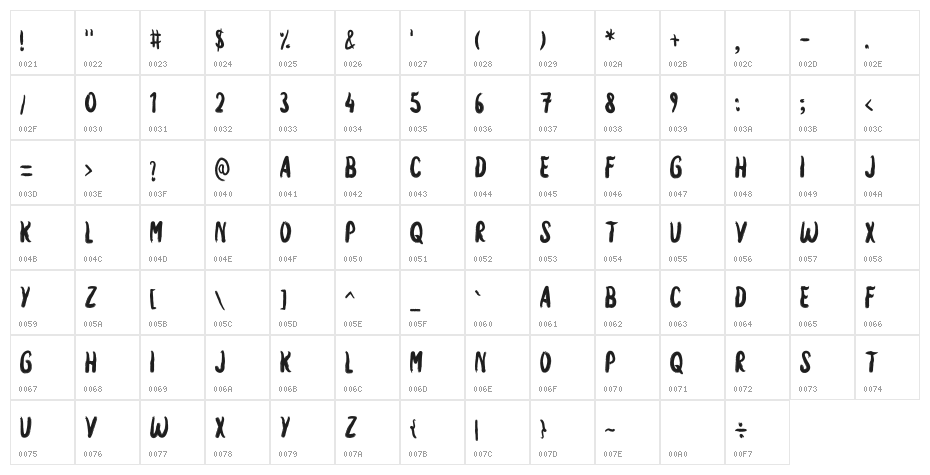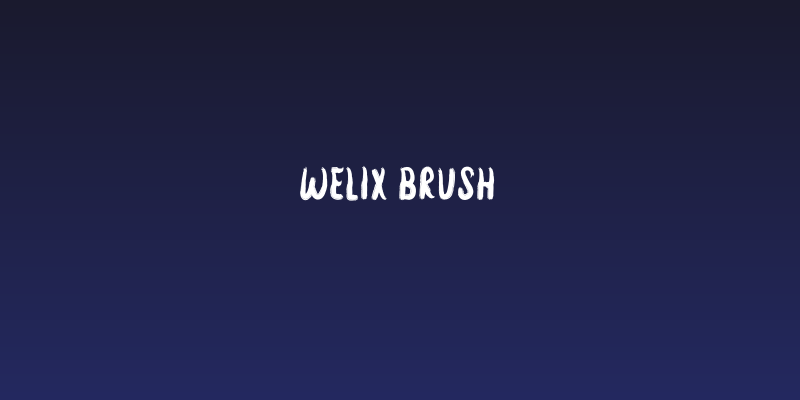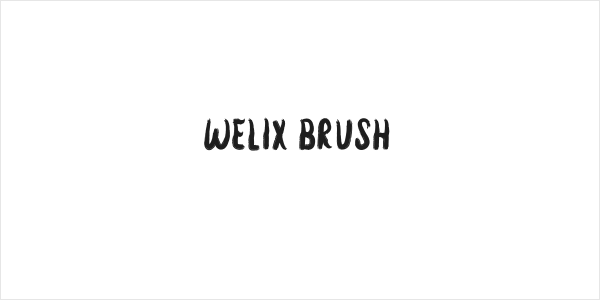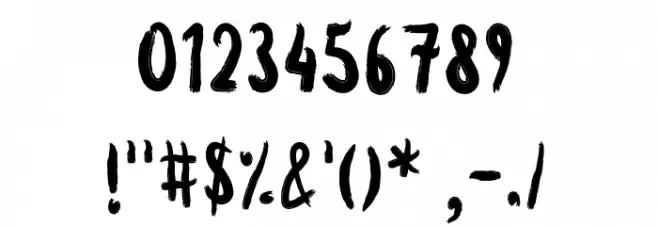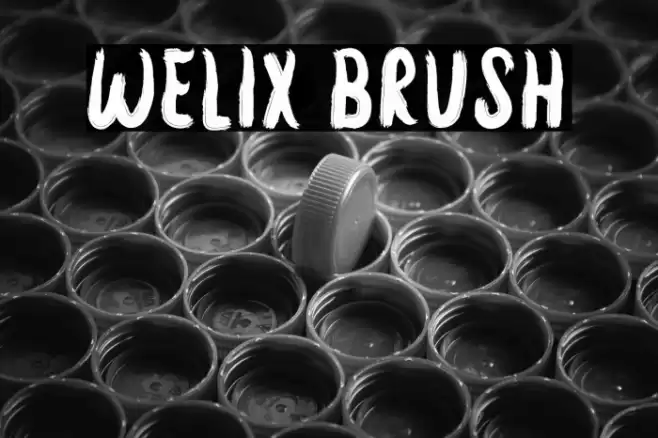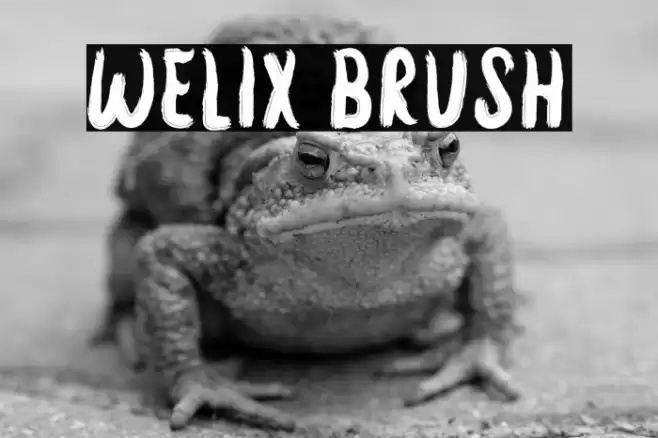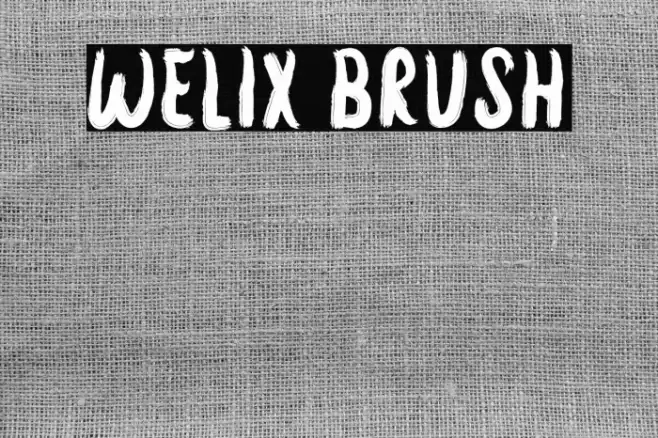
Welix Brush Font
This font exudes a dynamic and artistic flair, characterized by its brush-like strokes that give it a hand-painted appearance. The letters are bold and expressive, with varying thickness that adds a sense of movement and energy. The uppercase and lowercase letters maintain a consistent style, with rounded edges and slight slants that enhance its casual, yet impactful look. The numbers and special characters follow the same aesthetic, ensuring a cohesive design throughout. This font is perfect for projects that require a personal touch or a creative edge, making it ideal for artistic and informal applications.
| Proposed Projects | Ideal for artistic projects, branding, posters, and invitations that require a creative and personal touch. |